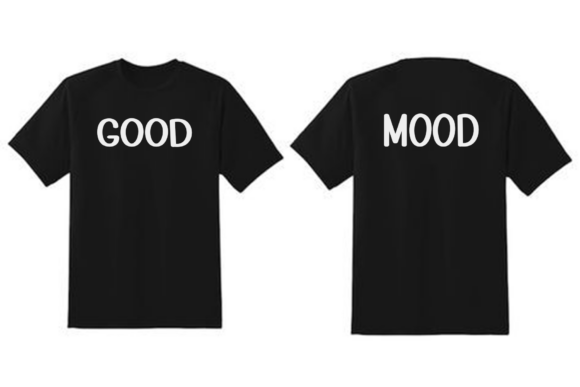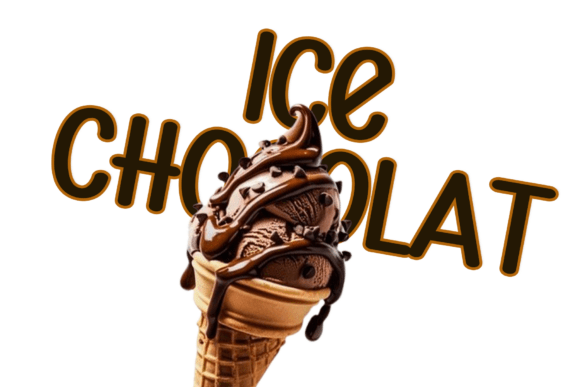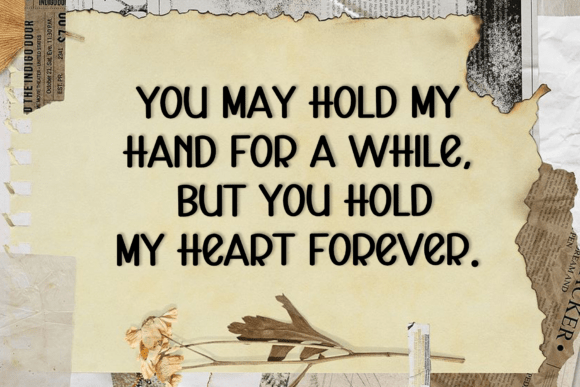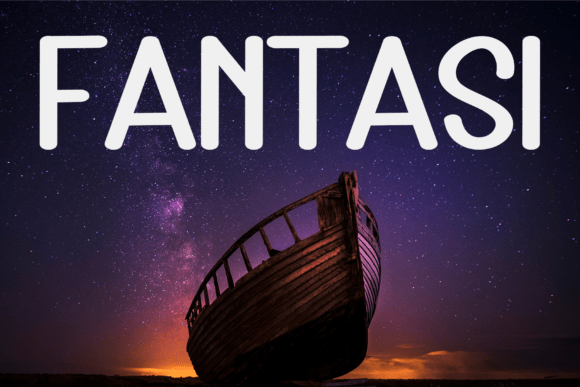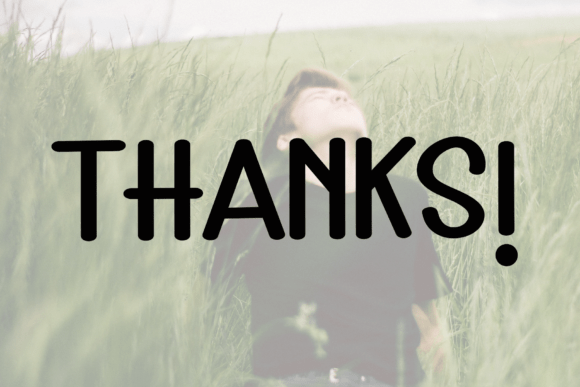
Introducing Feeling Font: The Ultimate Choice for Joyful Designs
Are you tired of using the same old fonts for your designs? Do you want to add a touch of playfulness and celebration to your projects? Look no further than Feeling Font, a beautiful, brush-handwritten font that’s perfect for birthday cards, party invitations, and any other joyful occasion.
What is Feeling Font?
Feeling Font is a unique, handcrafted font that’s designed to capture the essence of fun and celebration. With its lively strokes and casual style, it’s the perfect choice for designers and crafters who want to add a personal touch to their work. The font features a playful, brush-handwritten style that’s reminiscent of handwritten notes and letters.
Key Features of Feeling Font
- Playful and celebratory vibe: Feeling Font is designed to evoke a sense of joy and celebration, making it perfect for birthday cards, party invitations, and other special occasions.
- Lively strokes and casual style: The font features lively strokes and a casual style that gives it a personal and warm feel.
- Perfect for designs: Feeling Font is ideal for a wide range of designs, including birthday cards, party invitations, social media graphics, and more.
Why Choose Feeling Font?
There are many fonts available for designers and crafters, but Feeling Font stands out from the crowd. Here are just a few reasons why:
- Unique and creative: Feeling Font is a one-of-a-kind font that’s sure to make your designs stand out.
- Personal and warm: The font has a personal and warm feel that’s perfect for creating designs that connect with your audience.
- Versatile: Feeling Font can be used for a wide range of designs, from birthday cards to social media graphics.
- High-quality: The font is designed to be high-quality and easy to read, making it perfect for both print and digital designs.
Tips and Tricks for Using Feeling Font
Here are a few tips and tricks for getting the most out of Feeling Font:
- Use it for headings and titles: Feeling Font is perfect for headings and titles, where you want to make a bold statement.
- Mix it with other fonts: Feeling Font pairs well with other fonts, so don’t be afraid to experiment with different combinations.
- Experiment with colors: The font looks great in a variety of colors, so try experimenting with different hues and shades.
- Use it for digital designs: Feeling Font is perfect for digital designs, including social media graphics and email newsletters.
Feeling Font is a unique and creative font that’s perfect for designers and crafters who want to add a touch of playfulness and celebration to their work. With its lively strokes and casual style, it’s ideal for birthday cards, party invitations, and any other joyful occasion. Whether you’re a seasoned designer or just starting out, Feeling Font is a great choice for anyone looking to add a personal and warm touch to their designs.